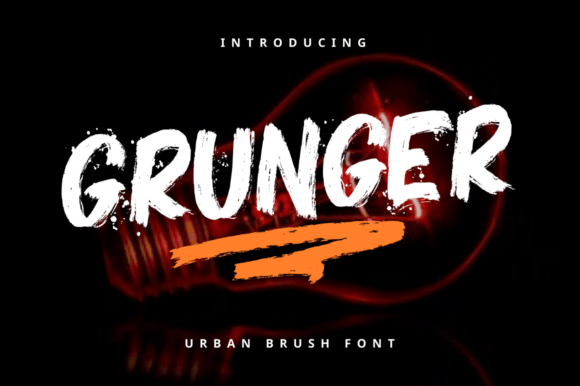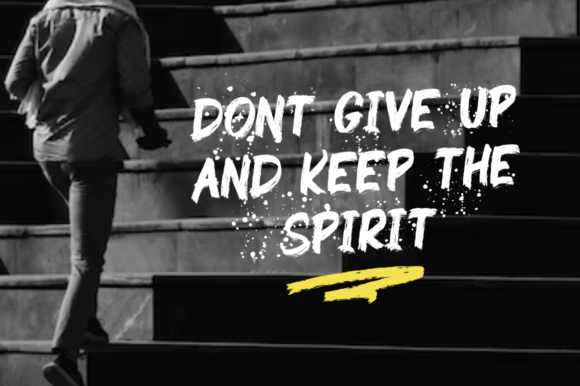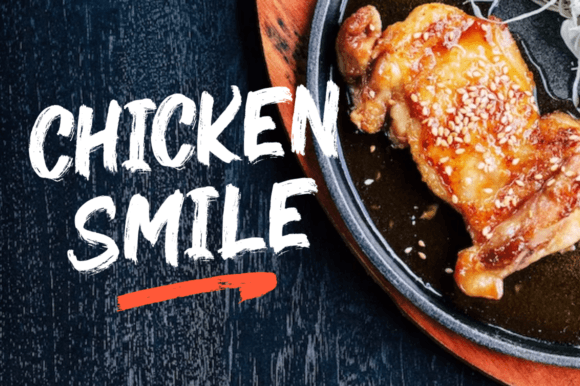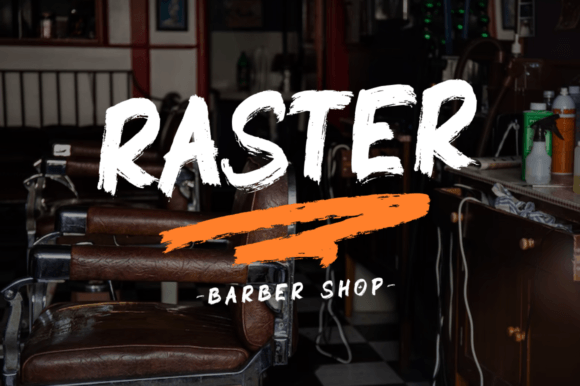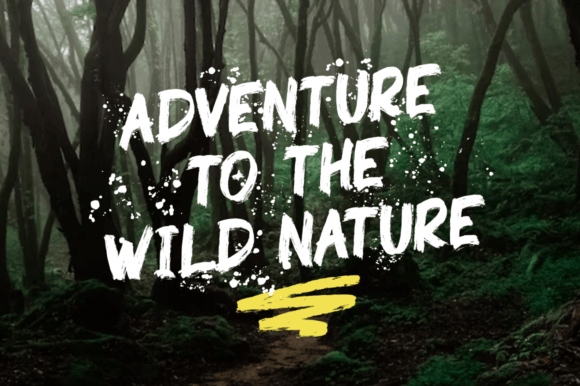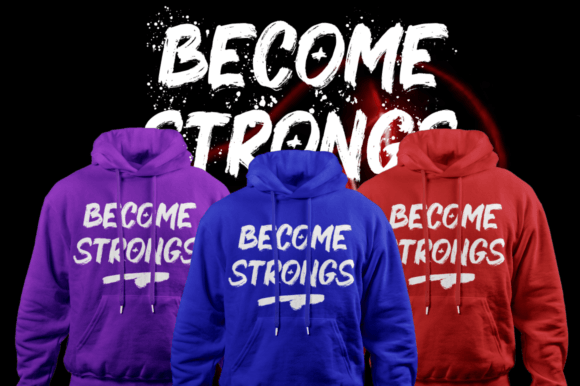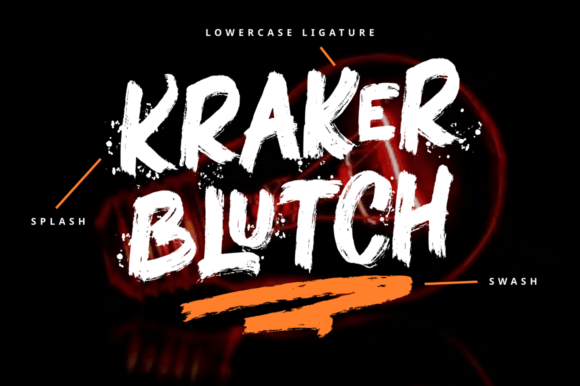
Time to Get a Little Edgy: Introducing Grunger Font
Have you ever been rummaging through your grandfather’s old toolbox, or digging through your favorite thrift store, and stumbled upon an old, worn-out notebook? The kind of notebook that’s been through the wringer, with handwritten notes and scribbles all over the pages? That’s the kind of inspiration behind the Grunger Font.
This display font is a masterclass in raw, unbridled energy, with dry brush strokes and natural handwriting that’s as rough as it is beautiful. And that’s exactly what makes it so valuable for designers looking to add a little grit to their designs. Whether you’re working on a logo, a brochure, or an event poster, the Grunger Font is the perfect addition to give your design a masculine, strong edge.
Grunger Font Key Features
- Font Family: Grunger Font is a sans-serif font family with a distressed, grunge-inspired design.
- Unique Characteristics: Distressed textures, rough edges, and worn-out look, giving it a unique and edgy feel.
- Style Options: Includes various style options, such as Regular, Italic, Bold, and Bold Italic, to cater to different design needs.
Grunger Font Review
Overall, I think the Grunger font is a solid addition to any designer’s toolkit. Here are some things that work well: ✨
- It has a gritty, high-energy feel that’s perfect for punk or grunge-inspired designs.
- The font is highly customizable, with a wide range of weights and styles to choose from.
- It’s great for creating bold, eye-catching headlines and titles.
- The font may be too loud or overwhelming for more subtle designs.
- Some users have reported issues with font rendering, particularly at smaller sizes.
- The font family is not as extensive as some other popular fonts.
Overall, I think the Grunger font is a great choice for designers who want to add some edge to their work. While it may not be perfect, it’s definitely worth checking out for anyone looking to create bold, attention-grabbing designs.
Tips for Getting the Most Out of Grunger Font
Use Grunger font for:
- Music-related designs, such as concert posters or album covers.
- Rock-inspired graphics, such as band logos or t-shirt designs.
- Edgy, alternative designs, such as flyers or social media graphics.
Experiment with different font sizes, colors, and styles to achieve the desired look.